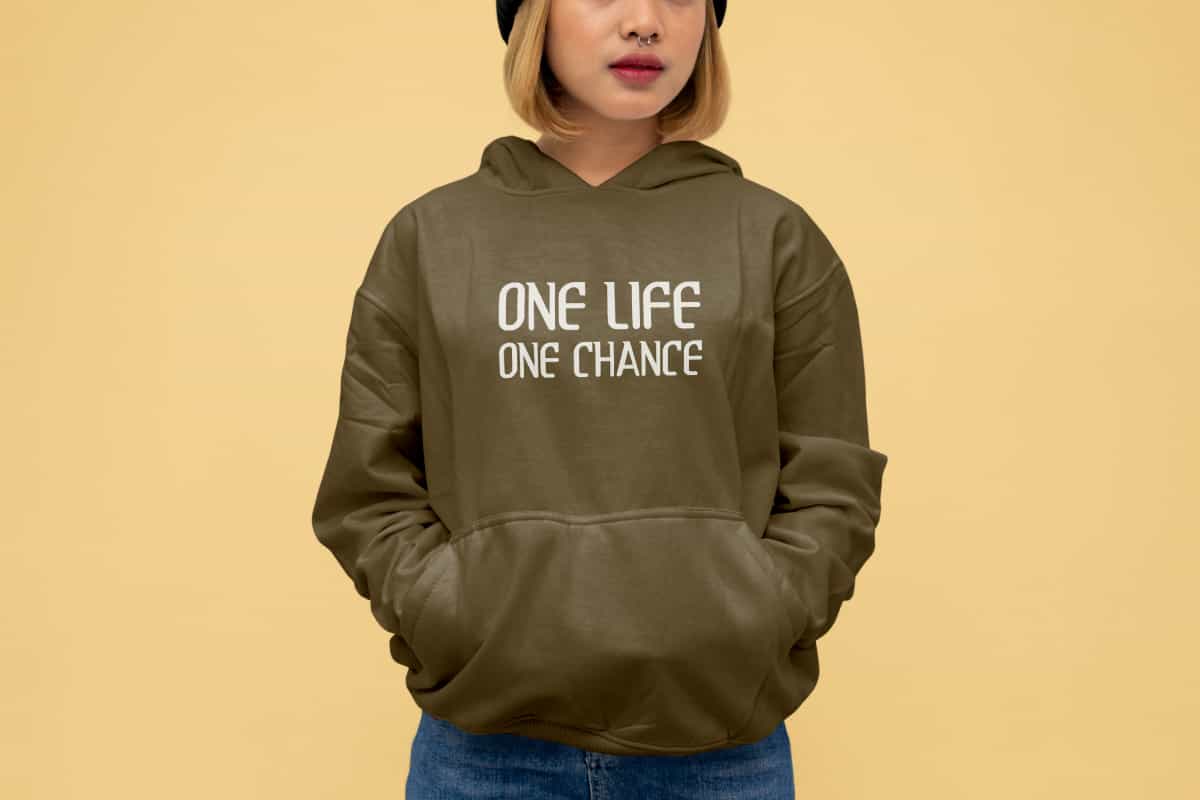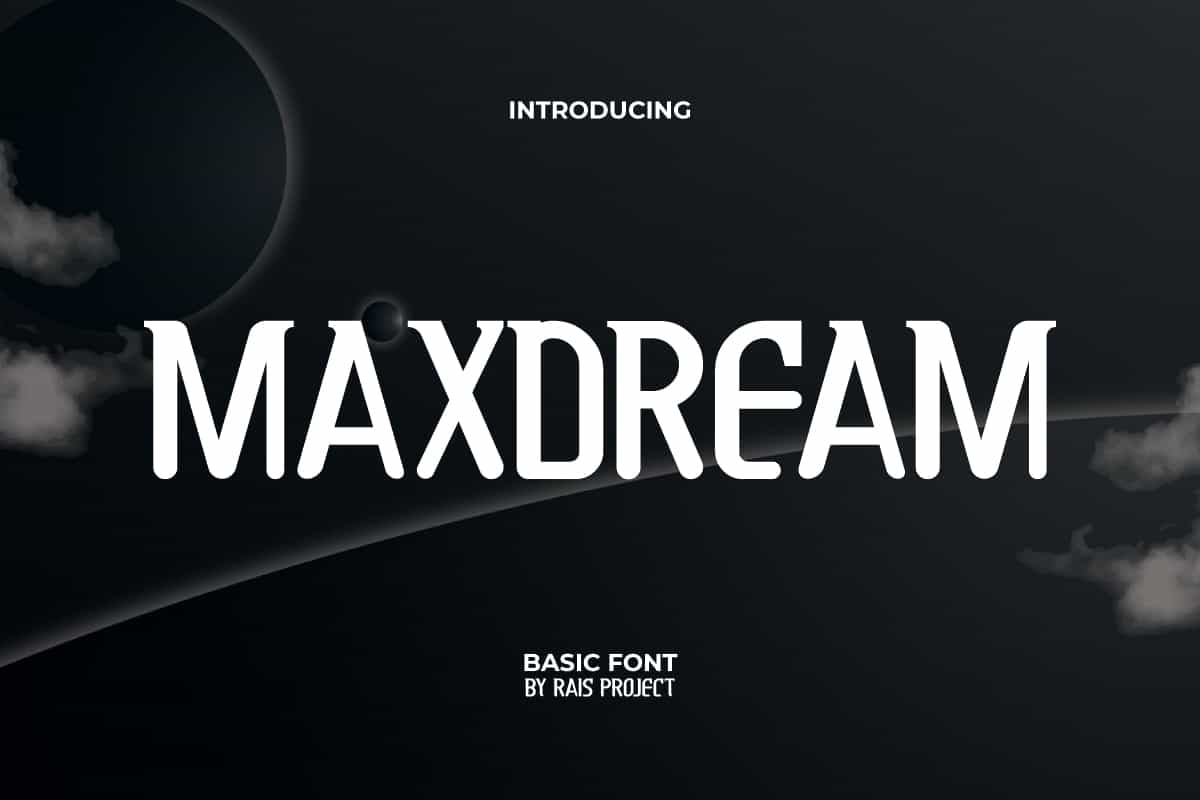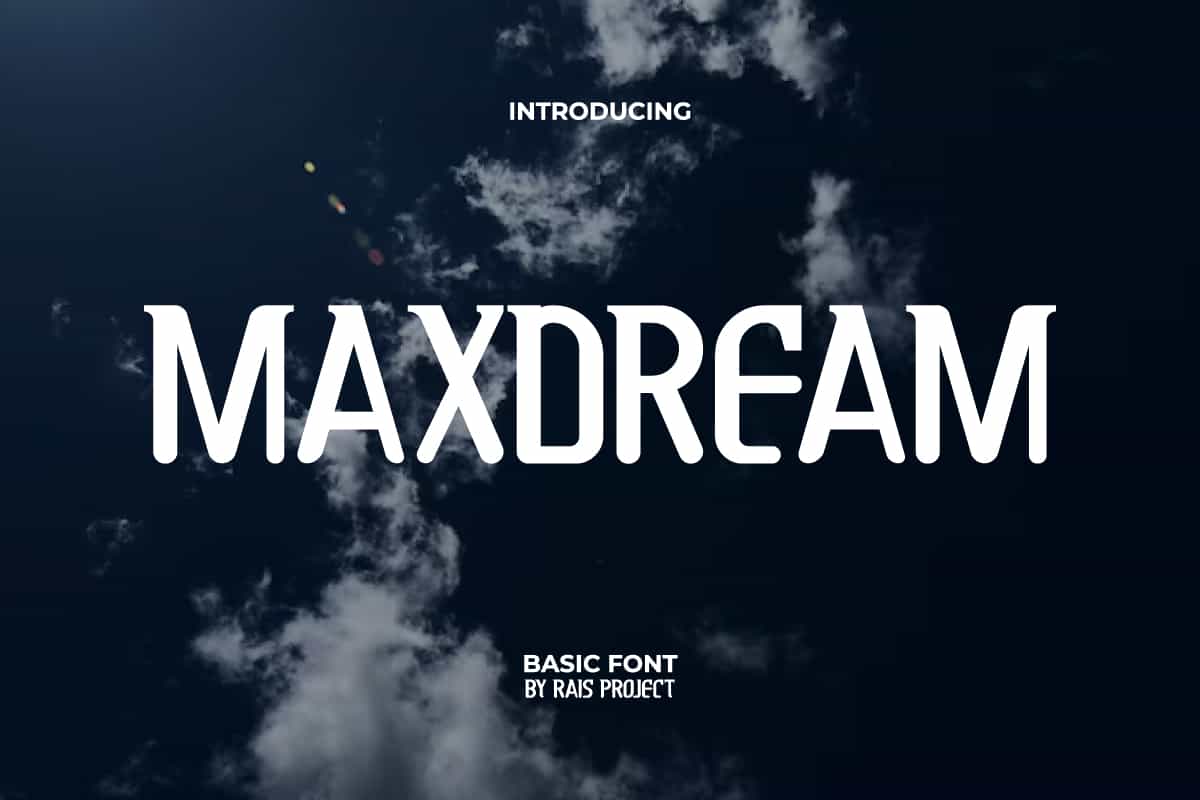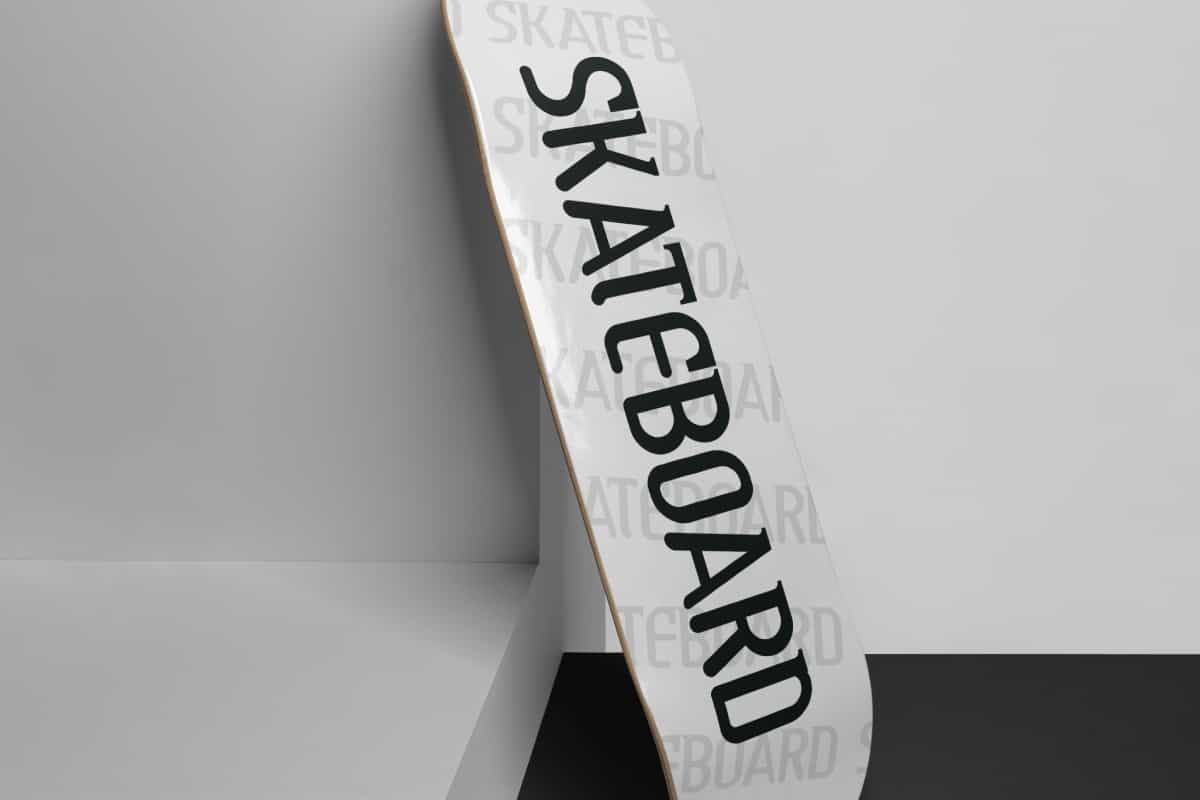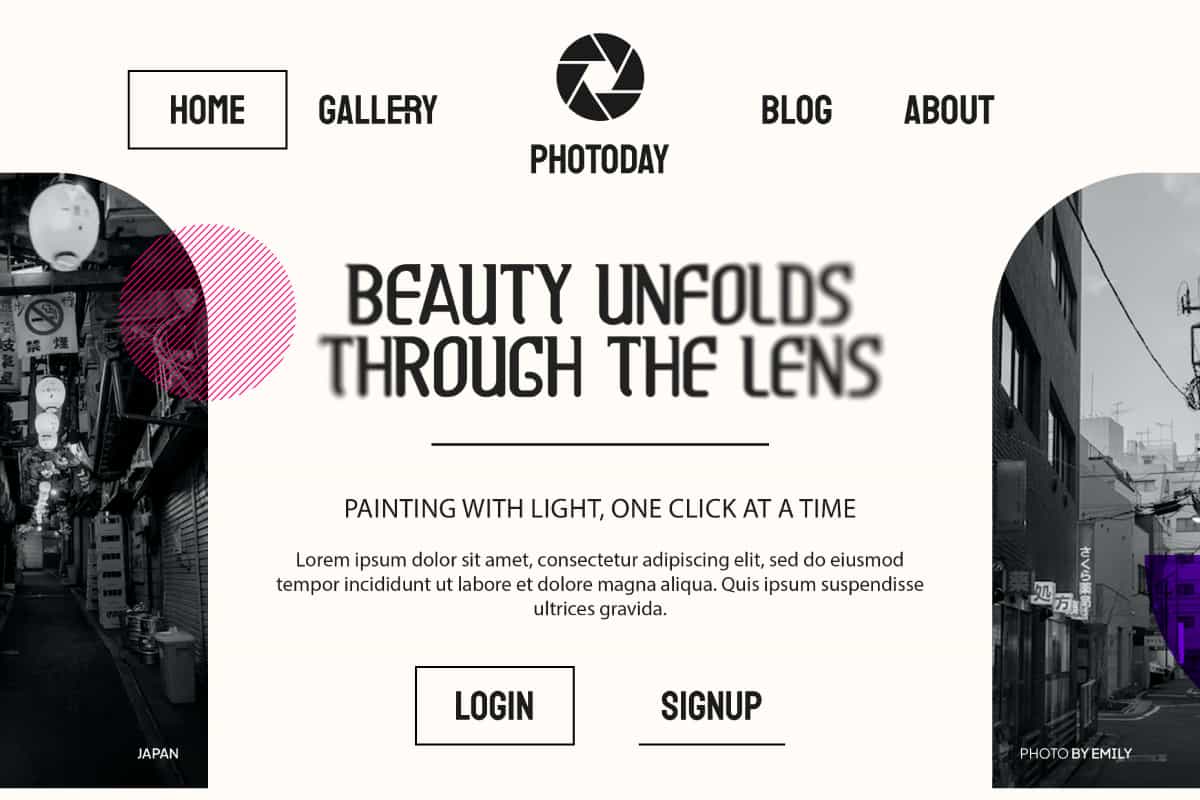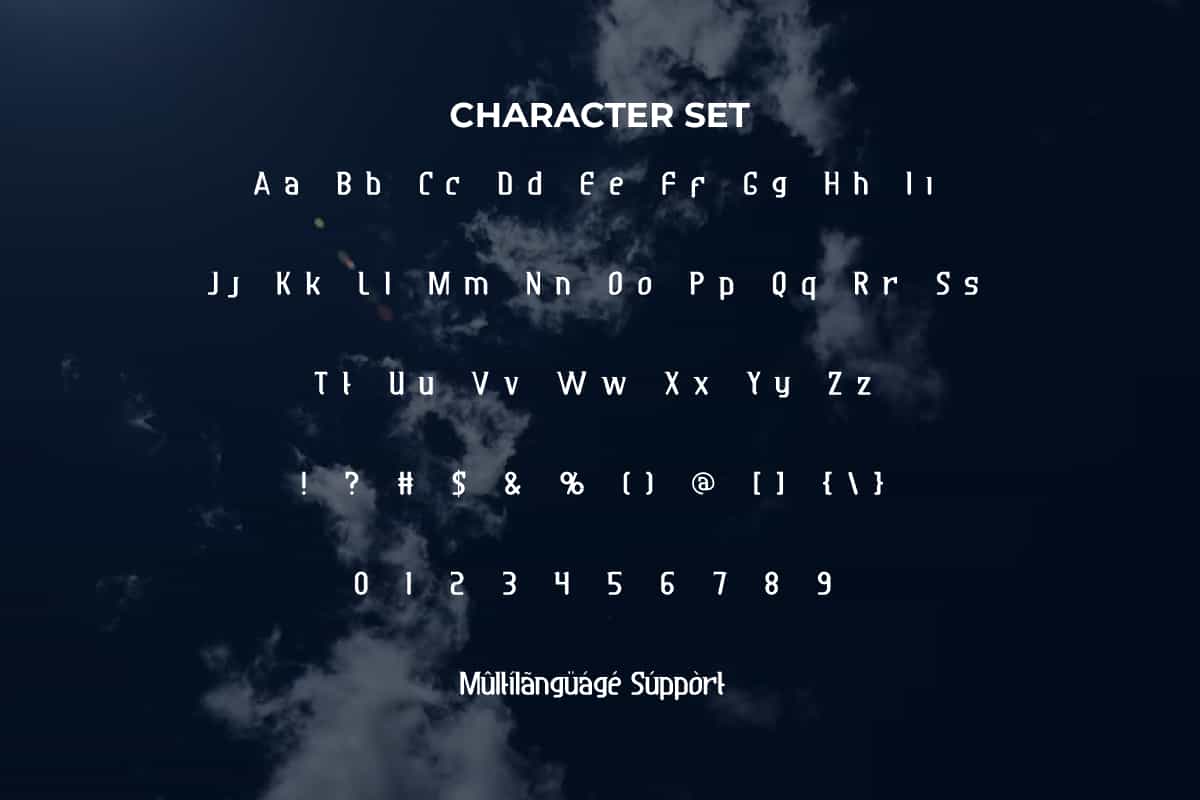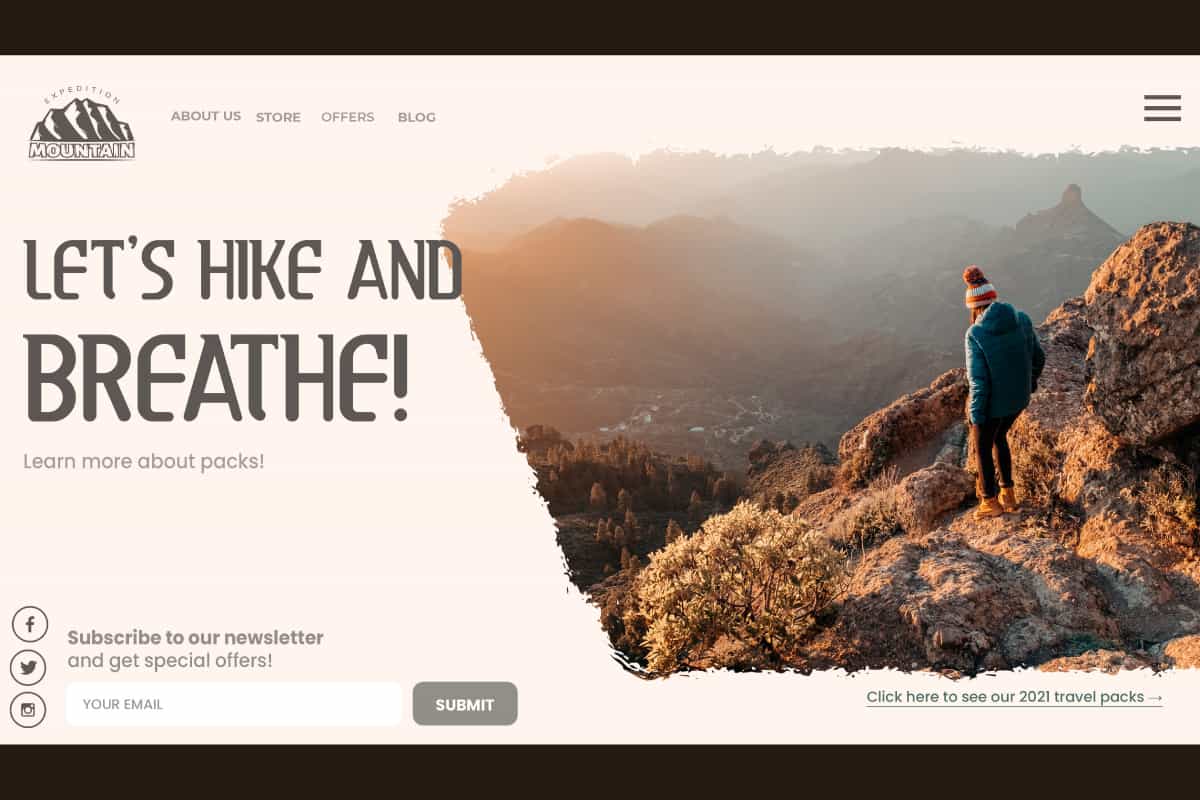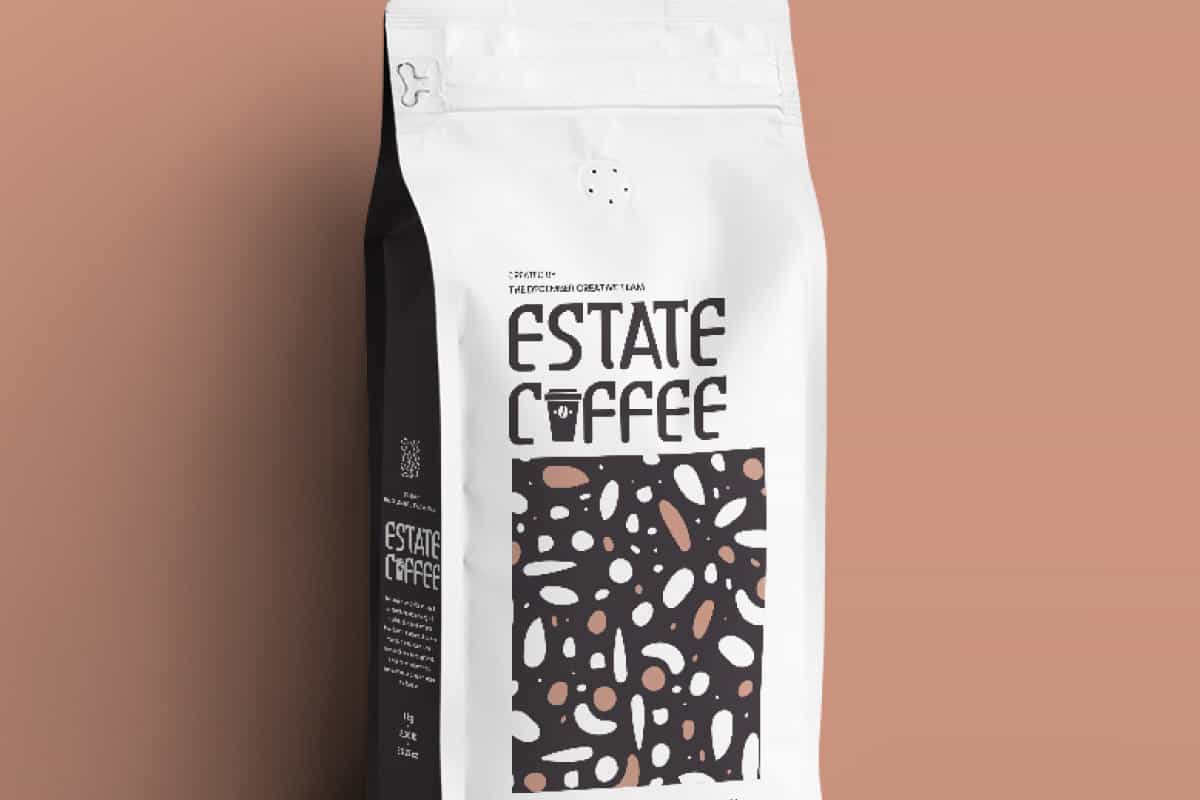
Maxdream Font
Maxdream Font is a unique yet casual display font. Create something unique using this font and show off its charm!
Maxdream Font is a unique yet casual display Font created by RaisProject. This basic style font can be paired with other font types to maximize the beauty of the design. It will be good for poster, custom design, product packaging, quotes, signage, brand image, advertisement, invitation, label, marketing material, stationery, website page, and more!
Maxdream Font includes a full set of ALL CAPS for Uppercase and Lowercase Letters, Numerals, and large range of Punctuation. This stylish font will be suitable for various industries, such as fashion, sports, game, barber shop, cafe, event or festival, photography, printing, publishing, etc.